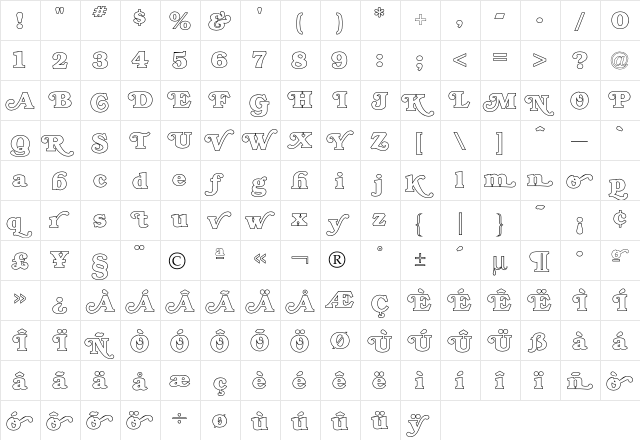
Bookman OutlineSwash Font Preview
Bookman OutlineSwash
Bookman OutlineSwash Font Details
Design Context for Bookman Typeface
Bookman brings a calligraphic fluidity to the page — its connecting strokes and expressive curves give it an unmistakably human quality.